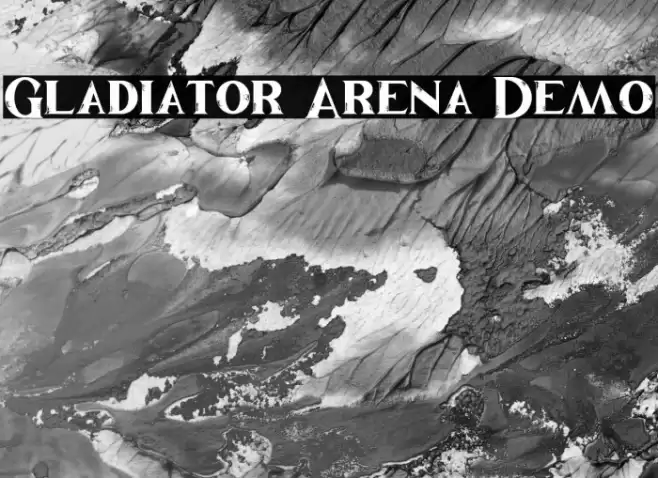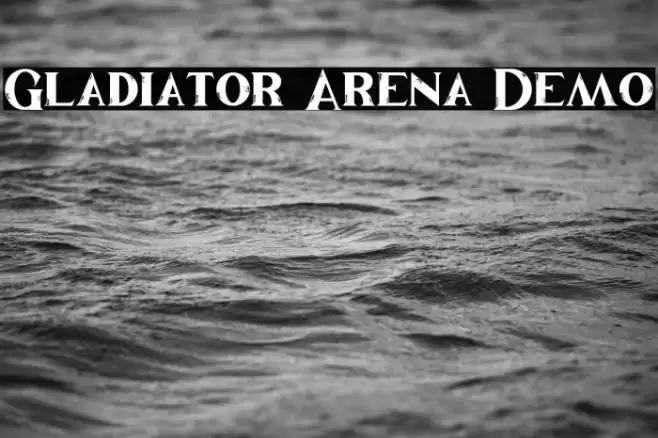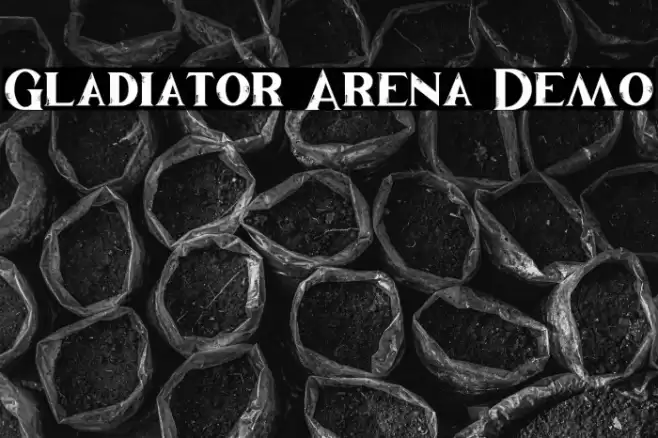
Gladiator Arena Demo Font
Gladiator Arena Demo Description
This font features a bold and dramatic style with a distinct vintage flair. The uppercase letters are characterized by strong, thick strokes and sharp serifs, giving them a commanding presence. The lowercase letters maintain a similar boldness, with a slightly more fluid and less rigid structure. The font includes a variety of special characters, each designed with the same attention to detail and stylistic consistency. The overall appearance is reminiscent of classic Roman or medieval typography, making it suitable for projects that require a touch of historical elegance or a bold statement.
A bold, vintage-style font with strong serifs and dramatic flair from Regular fonts.
- Proposed Projects: Ideal for movie posters, book covers, historical-themed events, or branding that requires a bold and classic touch.
- Overall Style: Vintage